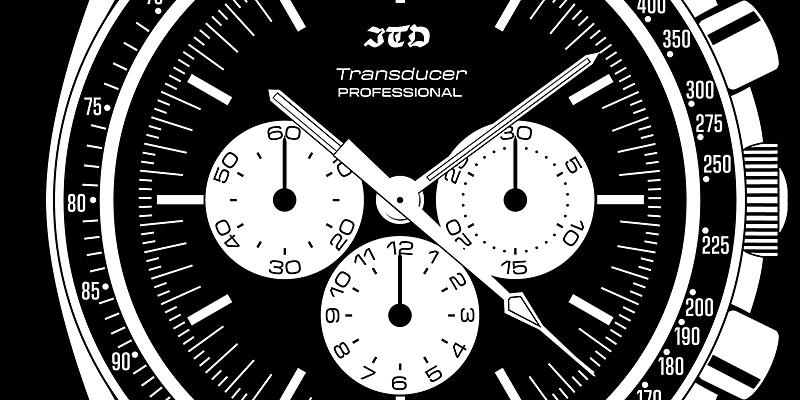
Transducer Font Free Download is a contemporary sans-serif typeface with a technical edge, perfect for projects that demand precision, structure, and a forward-thinking aesthetic. Inspired by modern engineering and industrial design, Transducer offers a clean, functional look that’s ideal for tech branding, UI design, signage, and editorial layouts.
With its crisp lines and well-defined characters, Transducer ensures high readability across both digital and print mediums. Whether you're designing app interfaces, futuristic posters, or sleek product packaging, Transducer Font Free Download provides the visual clarity and modern tone needed to communicate professionalism and innovation.
The typeface stands out with its subtle geometric details and consistent stroke widths, making it both stylish and dependable. It works beautifully in minimalist compositions and pairs well with monospaced or serif fonts for added contrast.